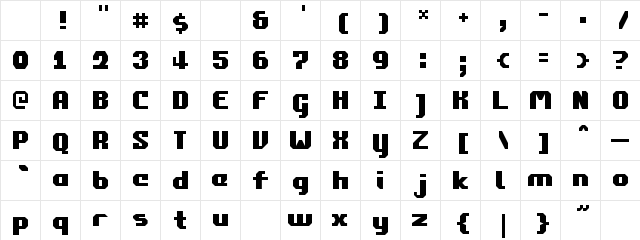
Unesco Regular Free Font
Unesco Regular
Designer: JupiterImages
Design Context for Unesco
Unesco is a composed and adaptable typeface that performs quietly and consistently across a wide range of design contexts.
Pro Tip: Use Unesco in both headline and body roles to test its range before committing to a single application.